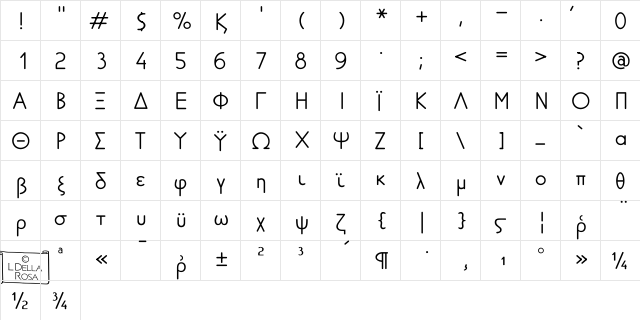
Greek Futura LDR Regular
Design Context for Greek Futura LDR Typeface
Greek Futura LDR channels digital-age aesthetics through its sharp, structured letterforms — ideal for brands that want to signal innovation.
Pro Tip: Use Greek Futura LDR in combination with a neutral sans for body text. Let it define the brand voice in headlines while keeping reading comfortable elsewhere.